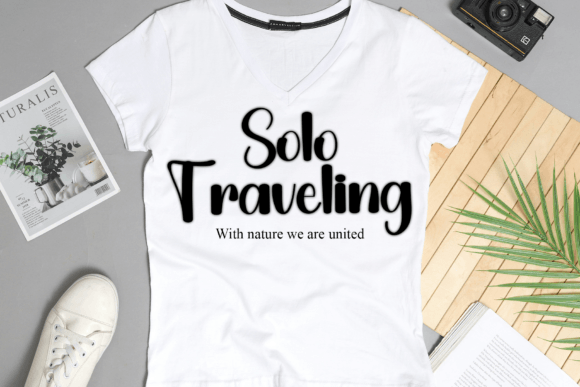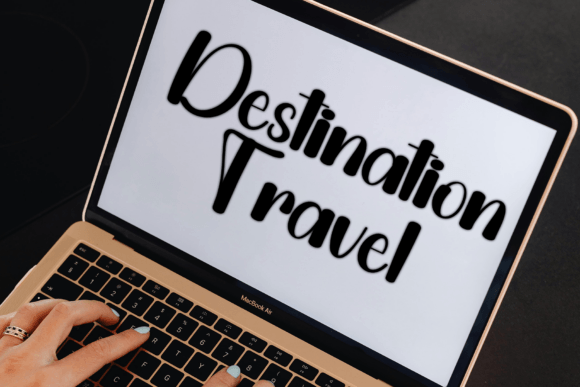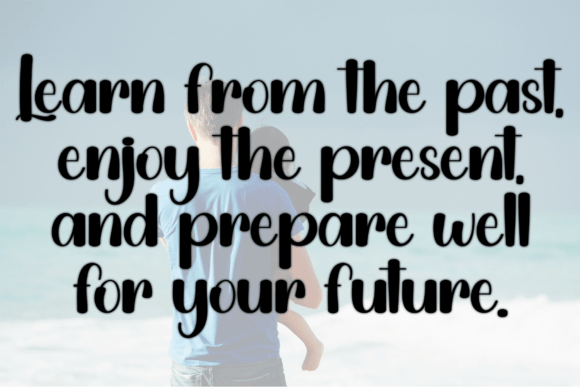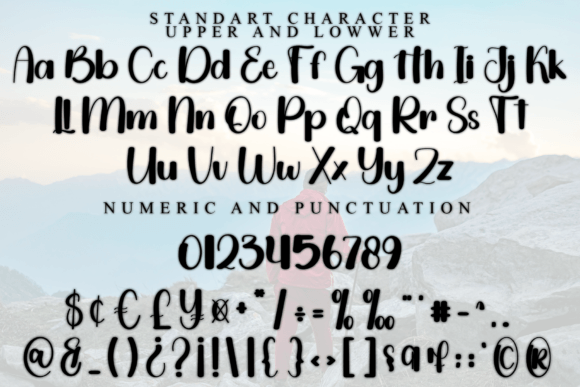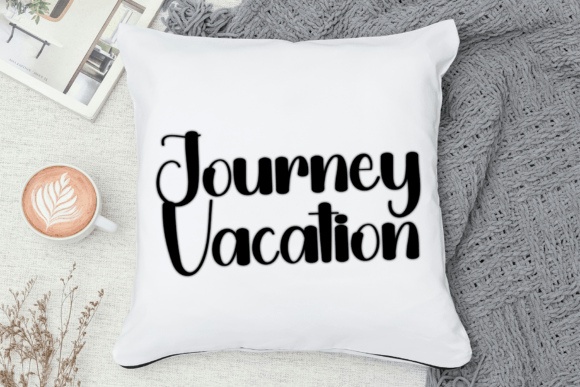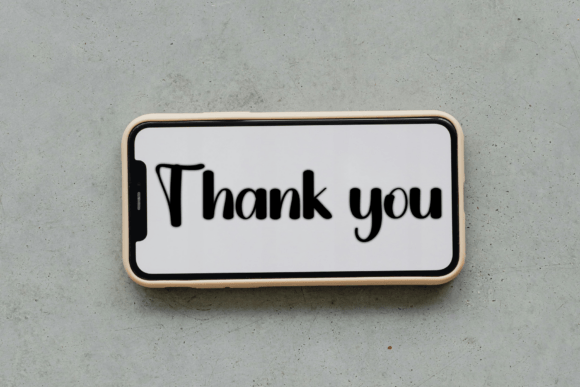
Introduction to Magic History Font
As designers, we’ve all been there – staring at a blank canvas, trying to come up with the perfect design for a client or personal project. The blank space can be intimidating, but sometimes all it takes is the right tool to spark creativity. For many designers, that tool is a high-quality font that can add a personal touch to a project. One such font that has gained popularity in recent times is the Magic History Font, a bold handwritten font that feels playful and strong.
With its thick and smooth letters, the Magic History Font is perfect for titles, logos, and designs that need to stand out. Its free download option makes it a valuable resource for designers, allowing them to experiment with the font without committing to a purchase. Whether you’re working on a design project or just want to add a creative touch to your social media graphics, the Magic History Font is definitely worth exploring.
Key Features of Magic History Font
- Unique blend of historical and magical elements, perfect for creative projects that require a touch of mysticism
- Each glyph is meticulously crafted to provide a high level of detail and nuance, making it ideal for designers seeking a premium font
- Designed to evoke a sense of wonder and enchantment, making it perfect for use in fantasy, science fiction, and historical projects
- Includes a comprehensive character set, covering a wide range of languages, including Latin, Cyrillic, and Greek alphabets
Honest Review: Magic History Font
I recently had the chance to work with the Magic History Font for a creative project and I must say, it was a delightful experience. The font is a fantastic design resource that can add a touch of elegance and sophistication to any project.
- ✨ High-quality design: The font is meticulously crafted with intricate details and a beautiful texture, making it perfect for projects that require a high level of sophistication.
However, there are a few limitations to consider. ⚠️ The font may not be suitable for projects that require a modern or minimalist aesthetic, as its intricate design may be too much for such designs. Additionally, the font may not be available in as many languages as some designers may require.
Overall, I’m impressed with the Magic History Font and would definitely recommend it to designers who are working on projects that require a touch of history and elegance. It’s a great addition to any design library and can be used in a variety of creative ways.
The Magic History Font is a unique design resource perfect for adding a touch of elegance and sophistication to your creative project. With its free download option, you can access this high-quality font and start using it in your design work right away.
The Magic History Font is perfect for:
- Historical or vintage-themed designs
- Formal event invitations and announcements